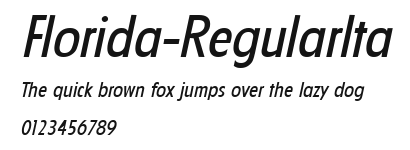
About Florida-RegularIta.ttf
Florida-RegularIta.ttf is a modern, elegant sans-serif font designed for ultimate readability and visual harmony. Perfect for branding, headlines, web design, and print materials.